Typeface/font rendering badly at different magnification levels in PDFs
I'm not really sure how to explain this properly, or if there is some terminology that I'm missing.
The problem is this: our brand typeface is very rounded, and sometimes in PDFs the baseline appears wiggly, making it hard to read.
The typeface prints well and on some magnifications it looks okay, but on others the typeface is really distracting (especially in paragraphs of text).
I'm aware that the typeface has been designed with overshoot on some letters to make them optically appear the same size, but Acrobat seems to be exaggerating this to the detriment of the readability.
Examples below:
Zoomed in - the baseline is straight
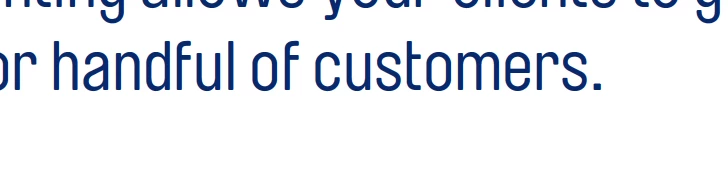
Zoomed out - the baseline is very wiggly
I'm on a MacBook Pro, and this wiggly-ness is even more pronounced on a PC.
Is anything I can do, either in my export settings from InDesign or in general?
Some notes:
It seems to render better when exporting InDesign as an interactive PDF rather than a print PDF
When saving as a jpg/png from Illustrator, it renders better when Saving For Screens rather than using the Asset Export
(p.s. no, we can't change the typeface )
it's an unfortunate situation. Since you have no control over the reading apps of your customers over screen resolution or zoom factors users are reading your PDFs you cannot do anything to better the situation. A different font could be a solution, but you already ruled that out. Corporate rules. I understand that very well…
Get in contact with the font makers and begin a discussion of that issue.
Isn't this what's known as a font "hinting" problem? Perhaps you should get back to the font designer and ask him to improve the font hinting.
I don't think you can do much about it.
Perhaps two things:
1. You could experiment with different sizes of the text.
2. Don't know if that's the case, but do not scale the text horizontally or vertically to make it slimmer or wider as the font designer intended.
It's the PDF reader's job to give you a good representation of an embedded font in the PDF with a given zoom factor and screen resolution.
What is your reading app?
Acrobat Reader? Which version?
I haven't scaled the text horizontally or vertically, so that won't be a contributing factor. Good suggestion though.
In terms of reading app, I'm on the latest version of Adobe Acrobat Pro DC. Many of our clients will be on the free Acrobat Reader (probably on older versions) so I'm keen for as much of a cross-version solution as possible (if at all possible).
it's an unfortunate situation. Since you have no control over the reading apps of your customers over screen resolution or zoom factors users are reading your PDFs you cannot do anything to better the situation. A different font could be a solution, but you already ruled that out. Corporate rules. I understand that very well…
Get in contact with the font makers and begin a discussion of that issue.